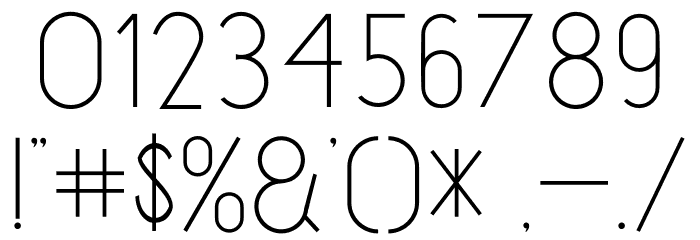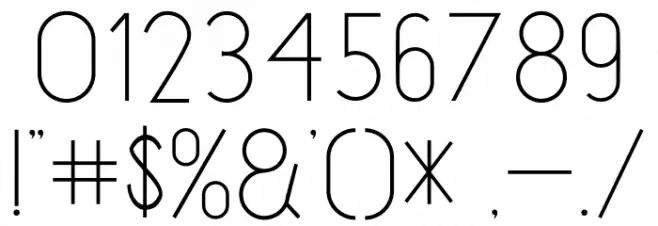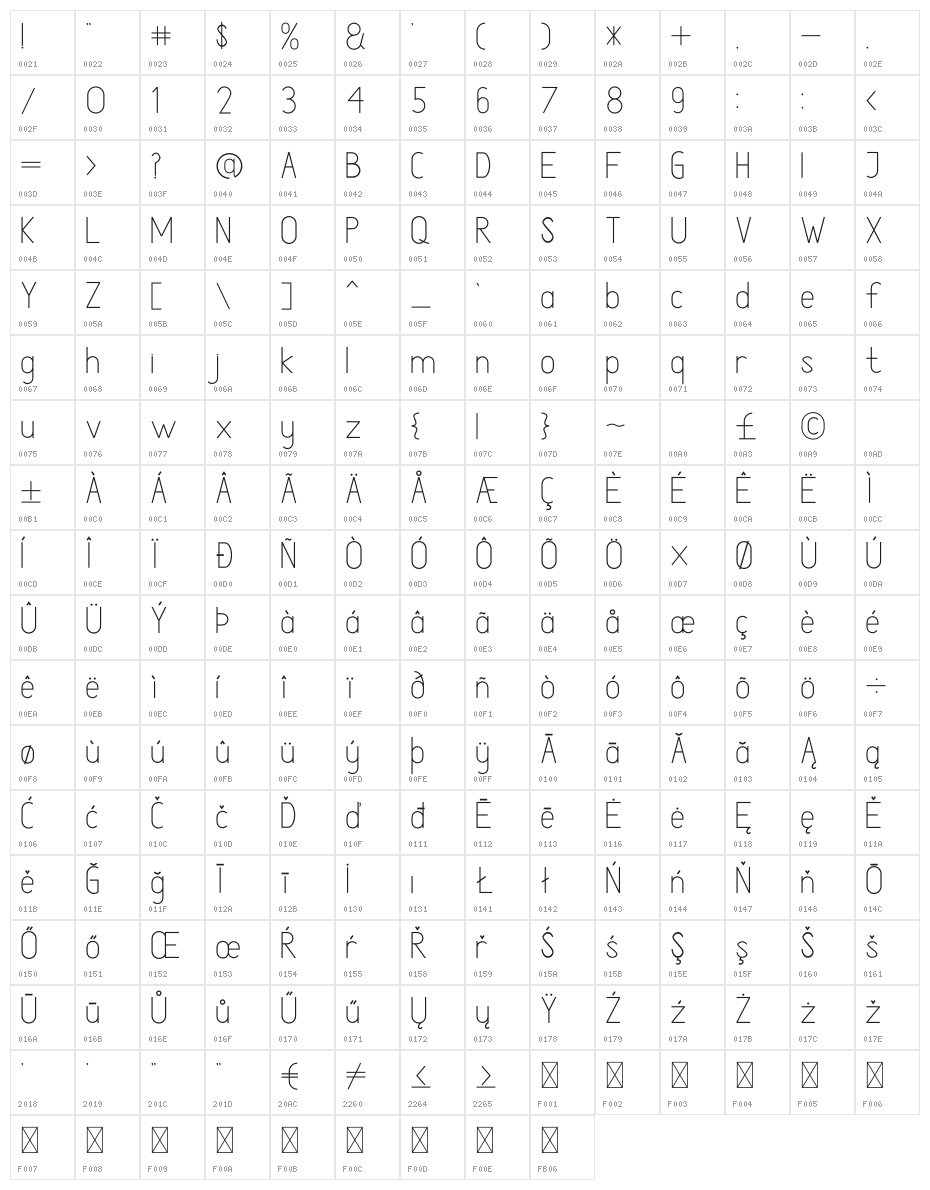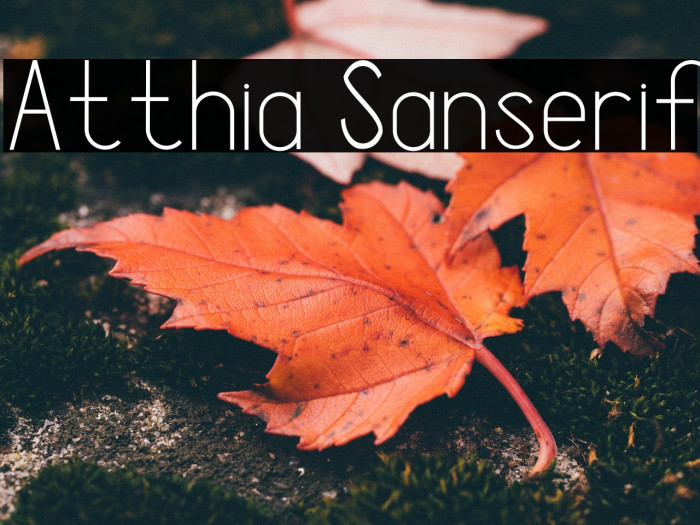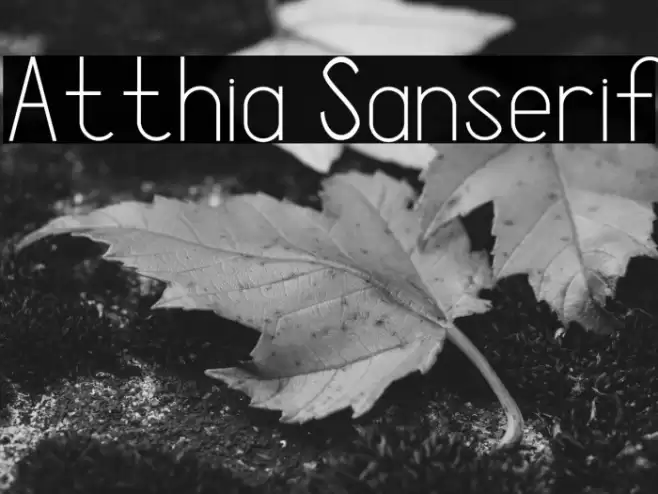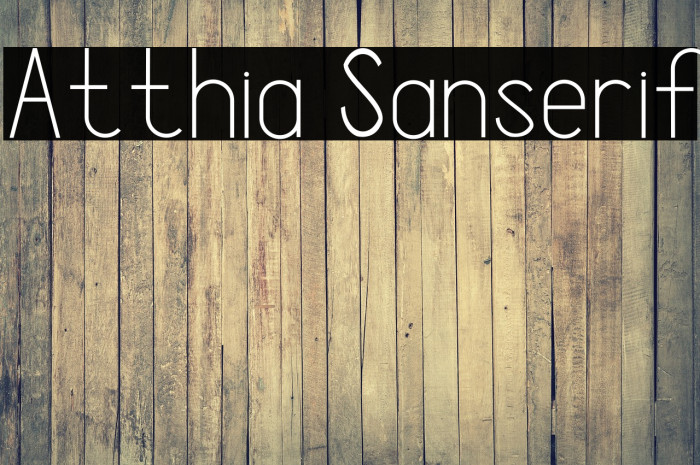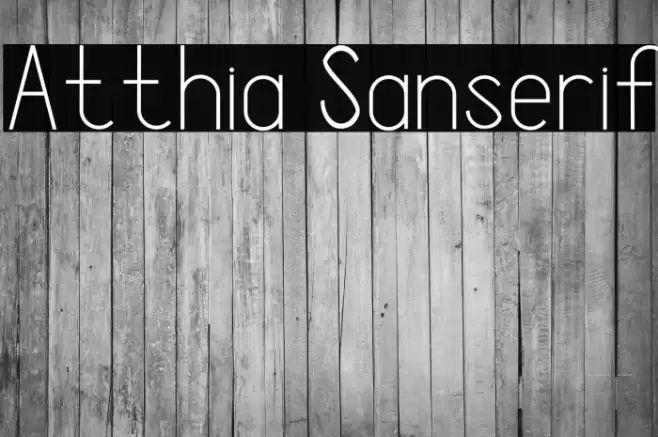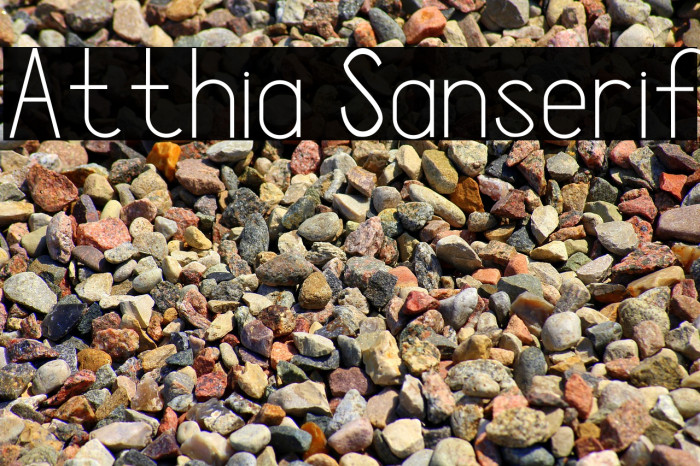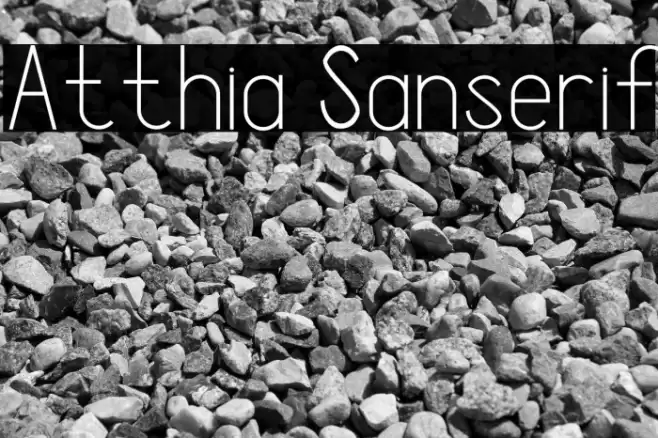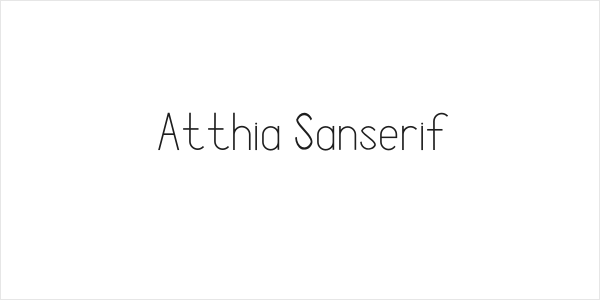
Atthia Sanserif Font
Atthia Sanserif Description
This font features a clean and modern sans-serif design with a geometric structure. The characters are uniformly thin, providing a sleek and minimalist appearance. The uppercase letters are tall and slightly condensed, while the lowercase letters maintain a consistent height, enhancing readability. The numerals are straightforward and align well with the overall style. Special characters are distinct and maintain the geometric theme, ensuring versatility in various applications. The font's simplicity and elegance make it suitable for contemporary design projects.